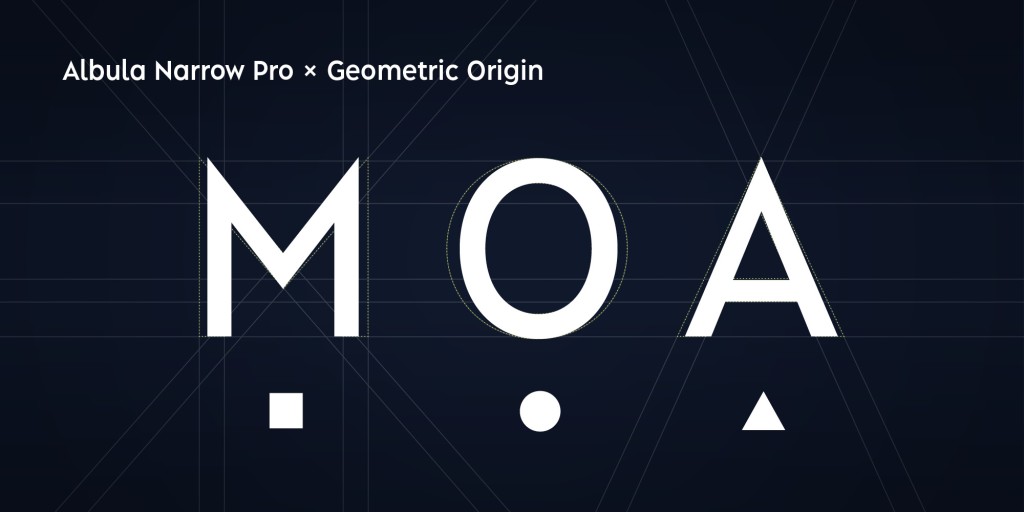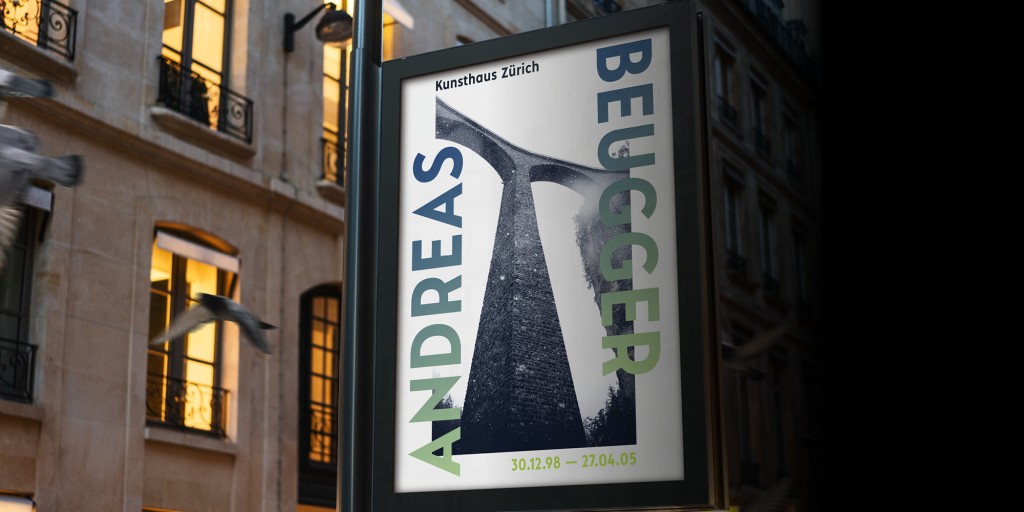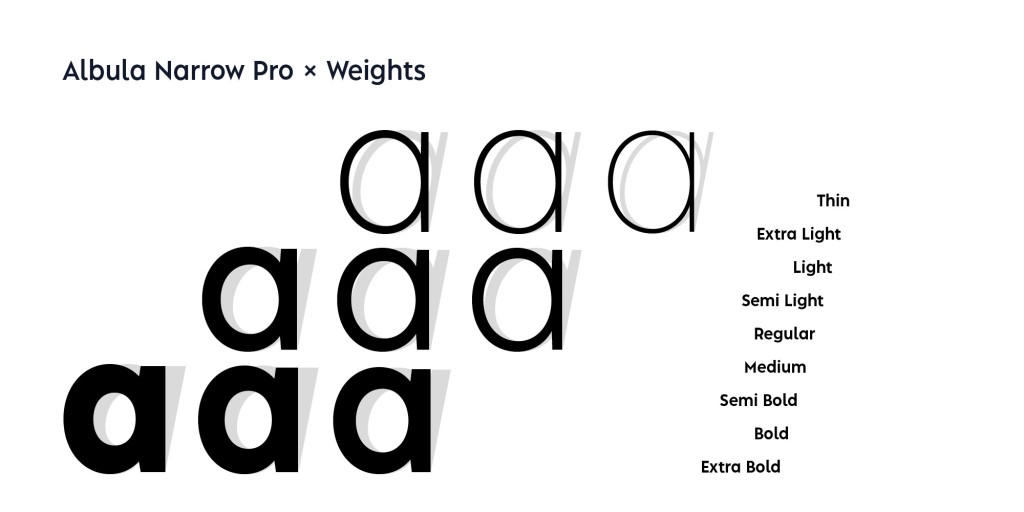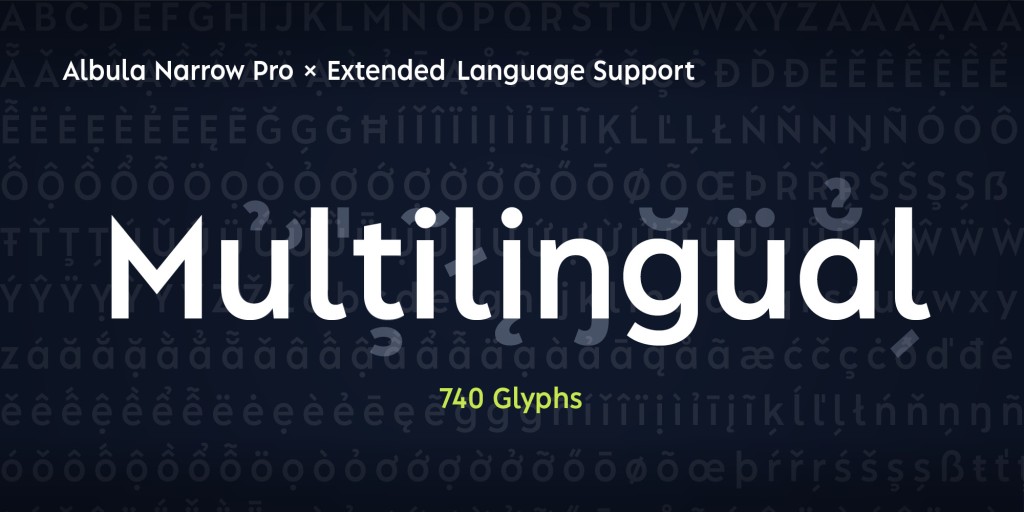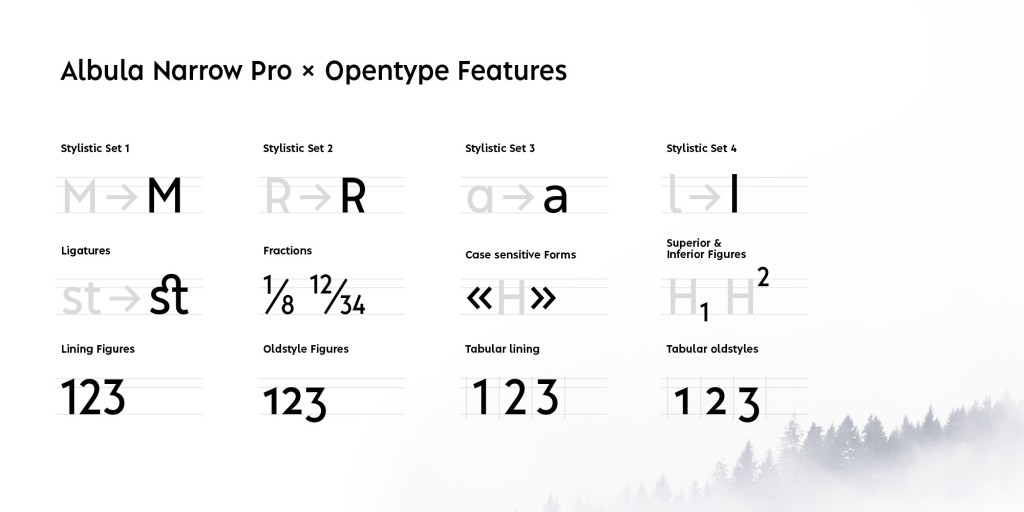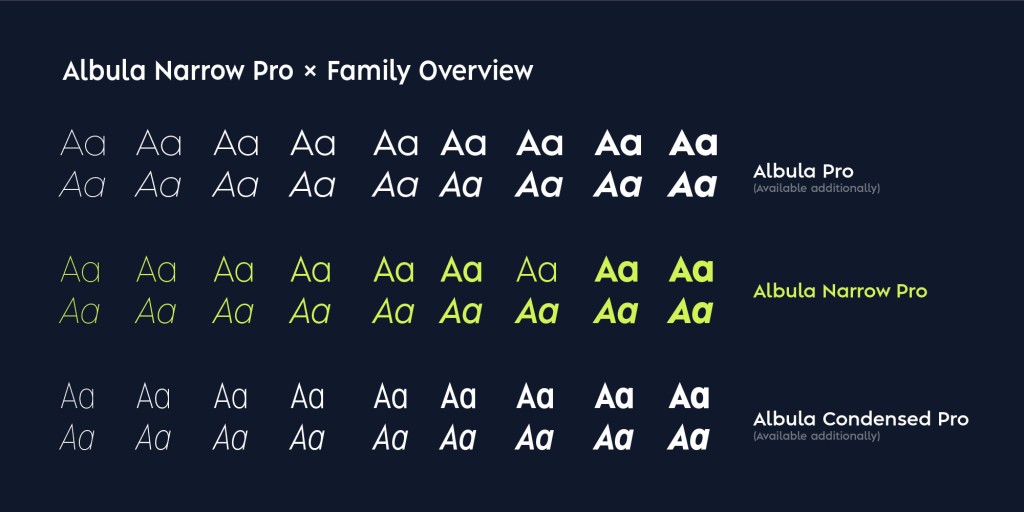
Albula Narrow Pro
The narrow companion to Albula Pro, optimized for space-efficient typesetting without sacrificing readability. Perfect for data-heavy layouts, tables, and compact editorial design.
Albula Narrow Pro is a contemporary geometric sans by Silvio Meier
The Albula Narrow Pro completes the Albula typeface family. The distinctive stylistic expression of the Albula with its unique form-details is clearly noticeable. The clarity with the sharpness of the endings as well as the derivation from the basic geometric forms can still be felt. Thanks to its narrow appearance the Albula Narrow Pro is very well suited wherever compactness is required.
This can range from applications in the field of branding to packaging design or signage. It’s a match even for narrow text columns and spreadsheets. As with its origin, during the development great importance was attached to legibility, so that a good reading experience is guaranteed, whether in a digital or analog use.